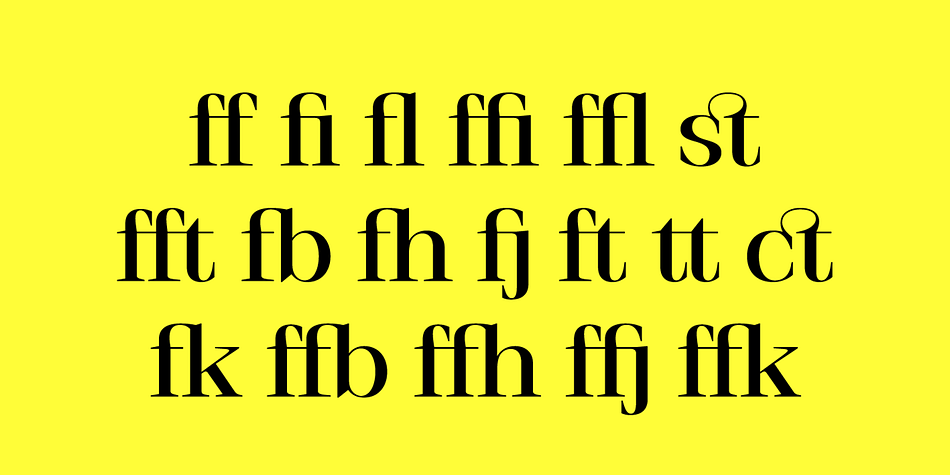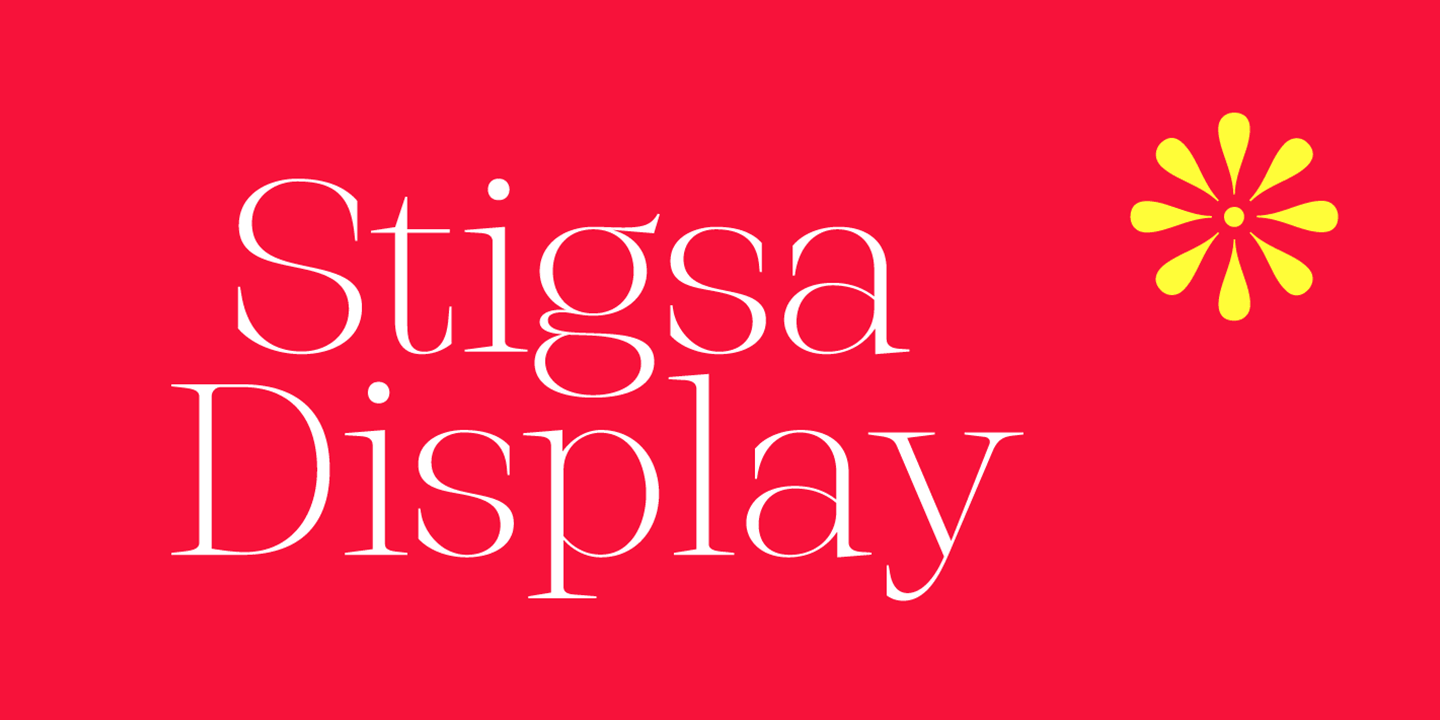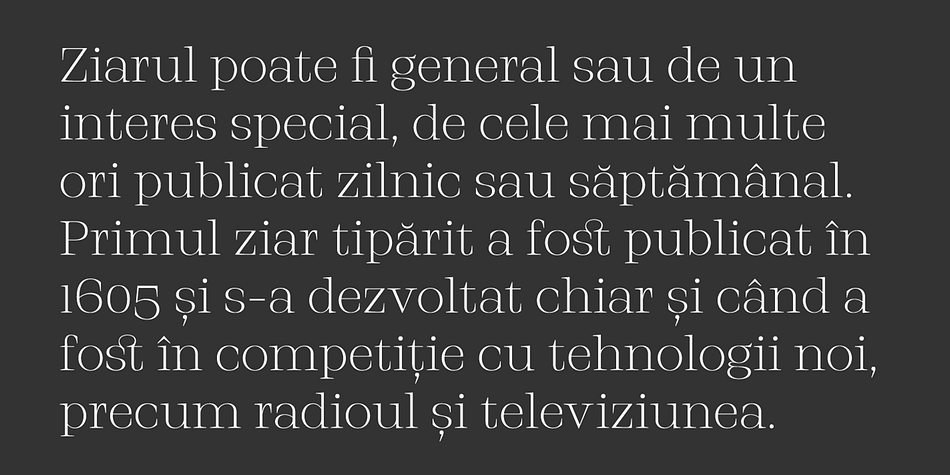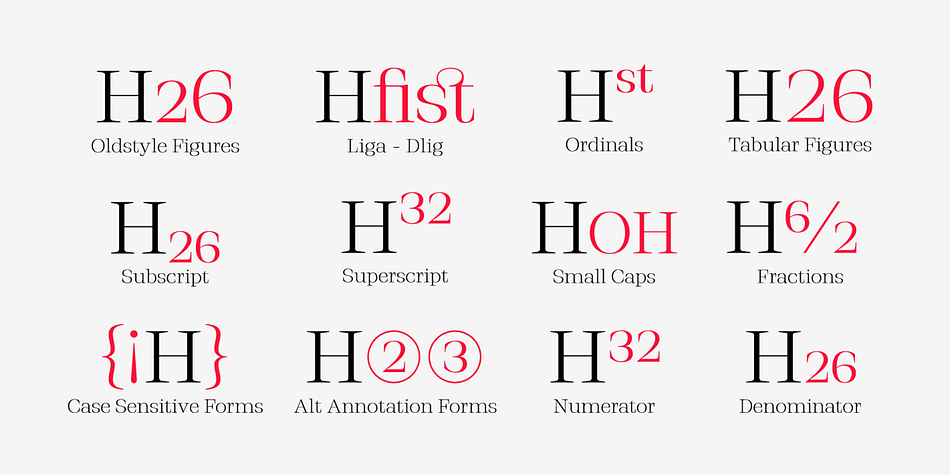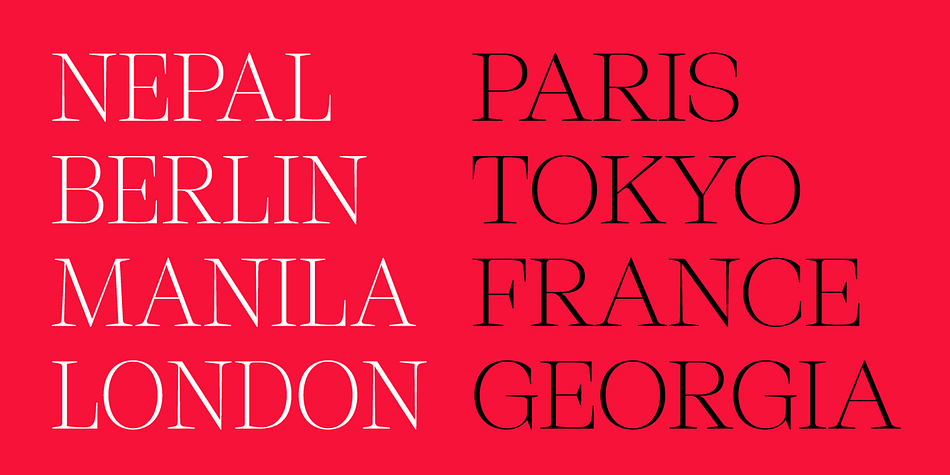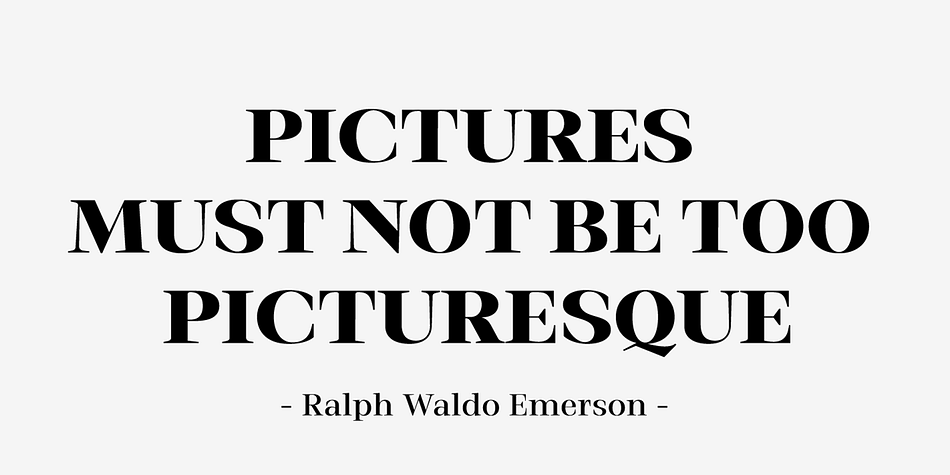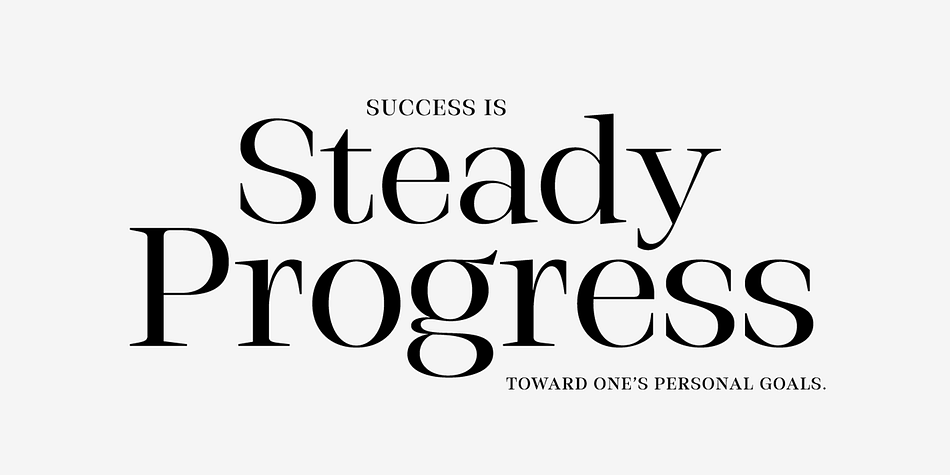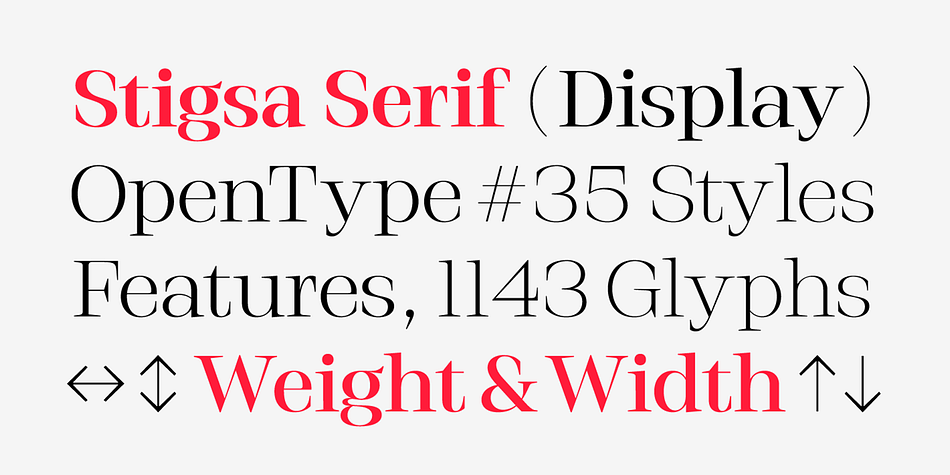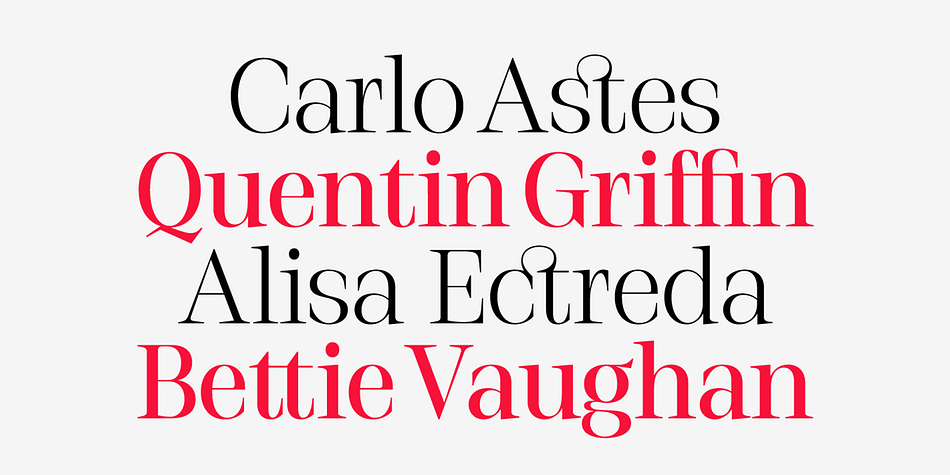
Stigsa Display is a display serif and serif font family. This typeface has thirty-five styles and was published by Seniors Studio.
Stigsa Display is a high-contrast typeface inspired by transitional and contemporary typefaces. A vertical stress with sharp serifs, delicate and legible. Stigsa Display family consist of 35 fonts: 7 weigths and 5 widths. With 1143 glyphs each. Stigsa Display family with various styles will be an handy tool for a wide variety of designs. The typeface high contrast designed for use in big text sizes and medium sizes. Via the OpenType features allow for the implementation of typographic niceties such as small caps, tabular figures and oldstyle figures, ligatures, case-sensitive, fractions and extended language support.